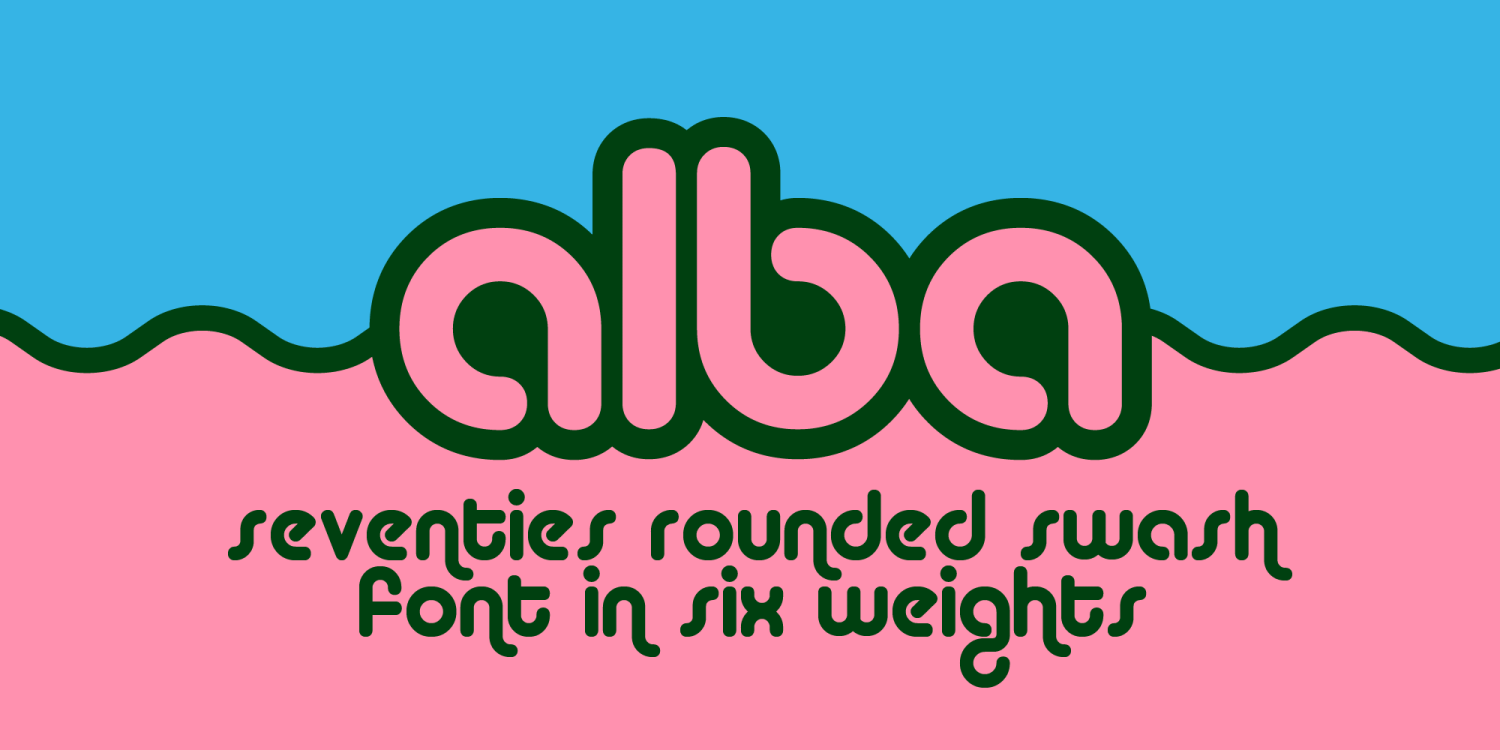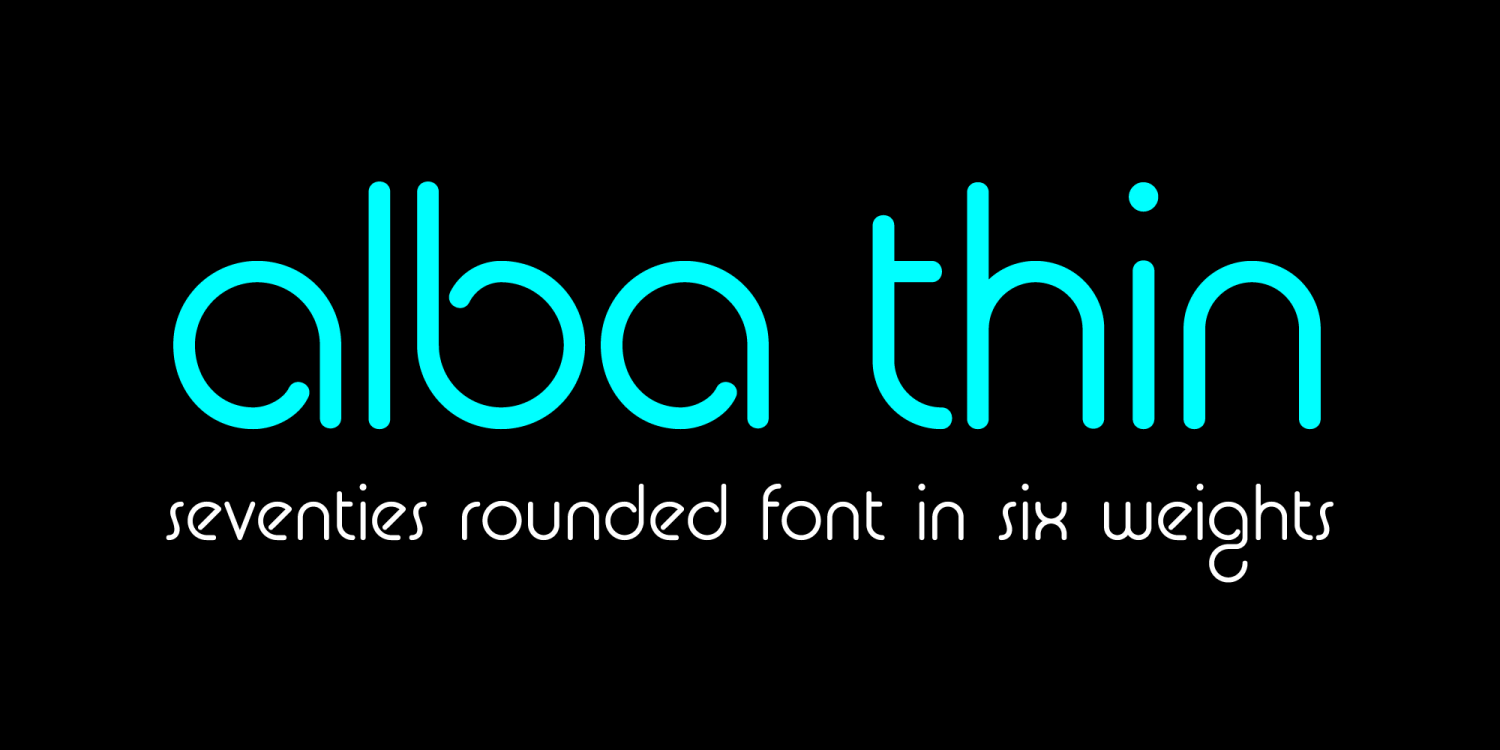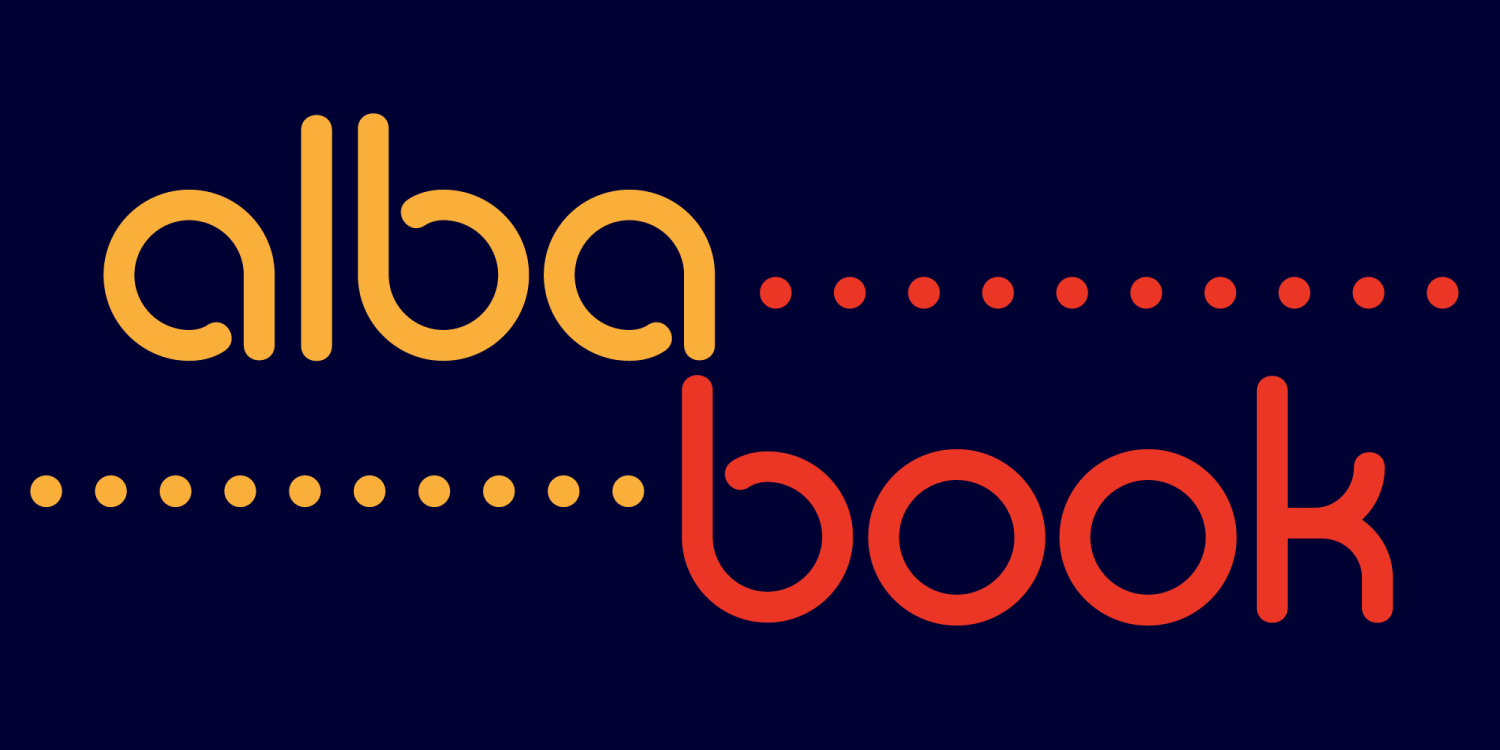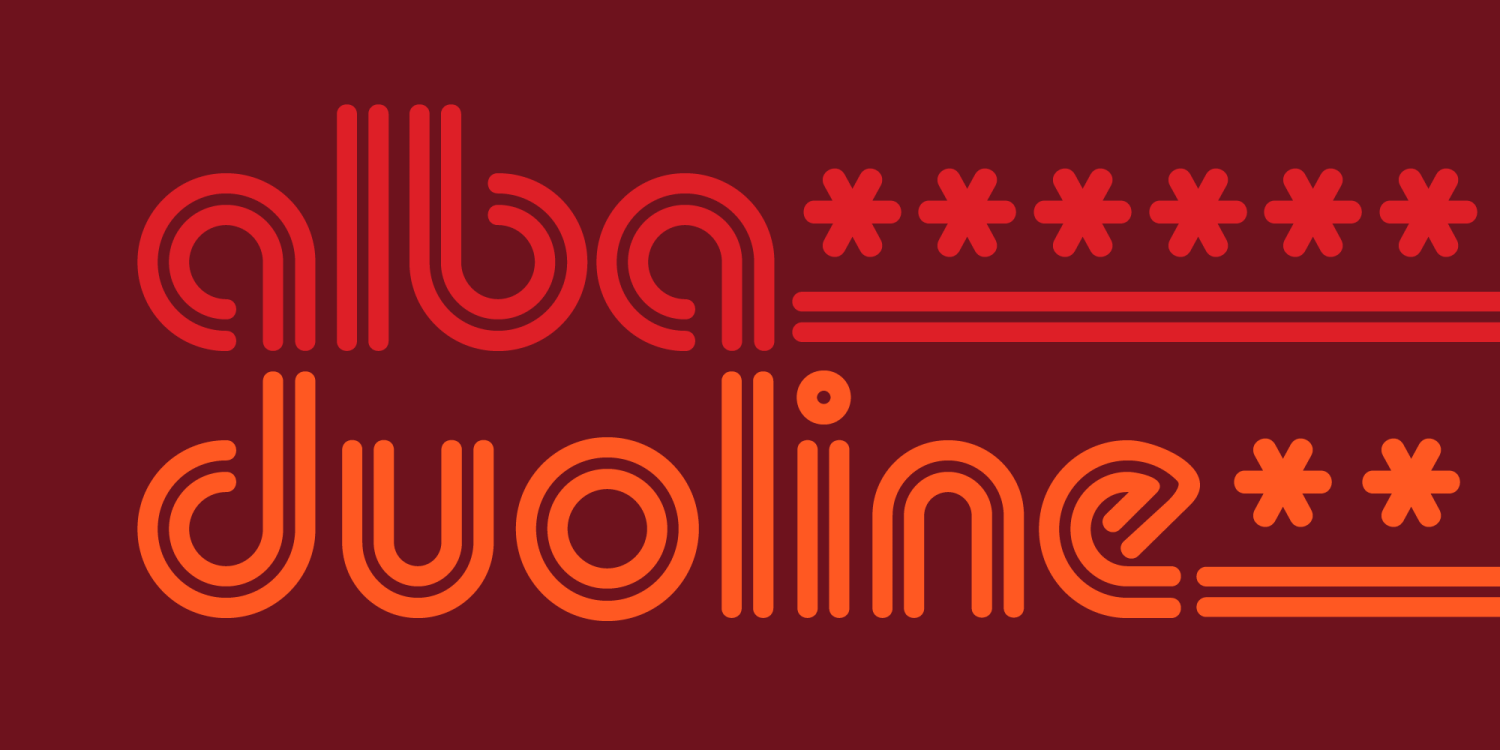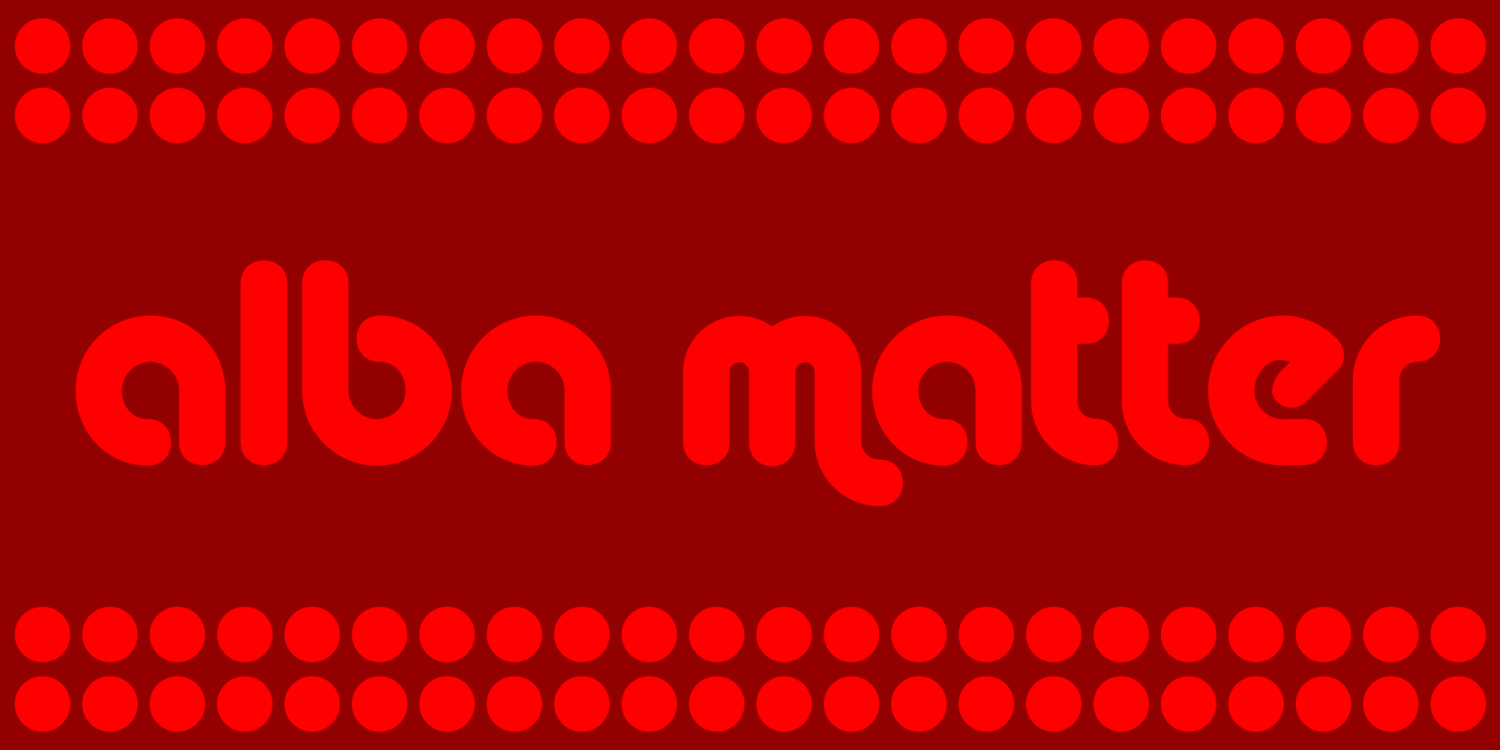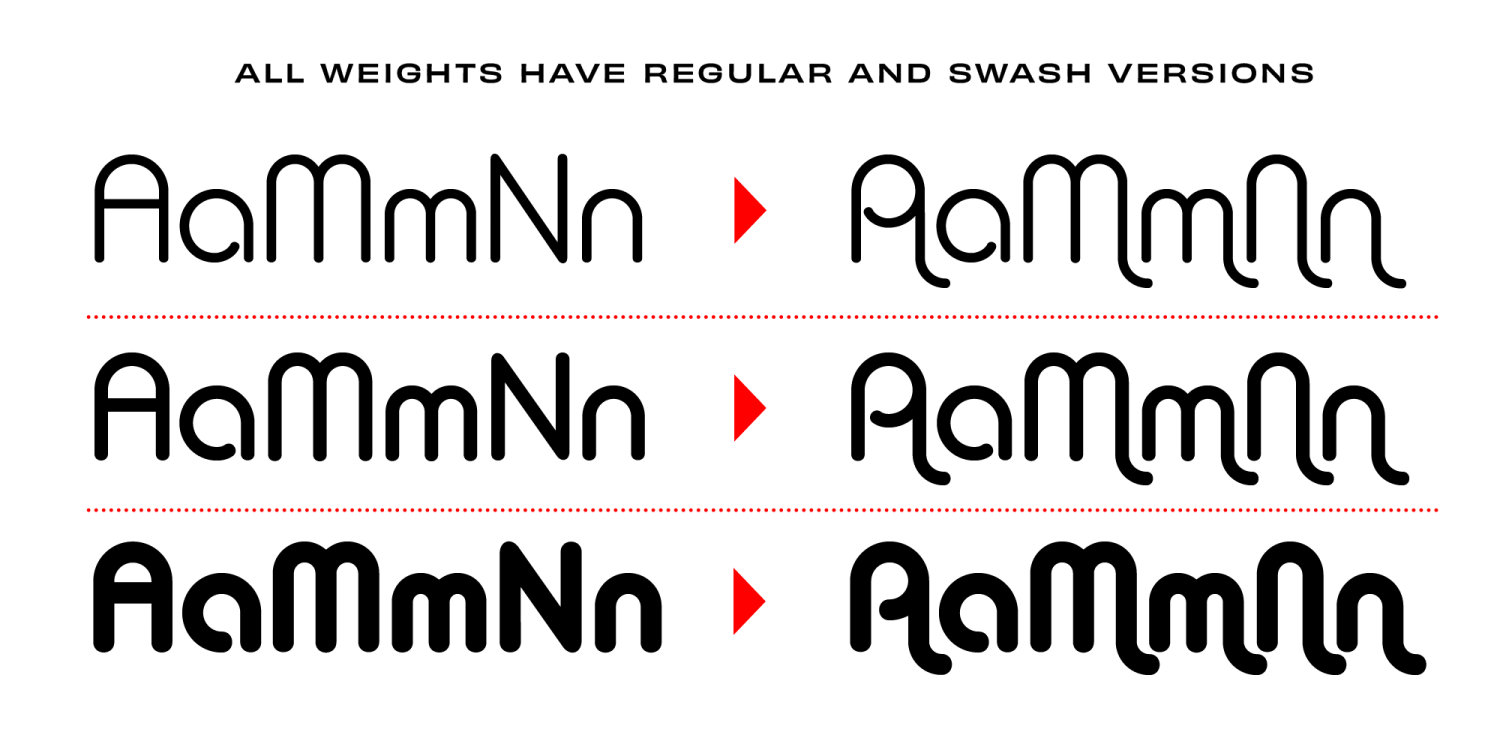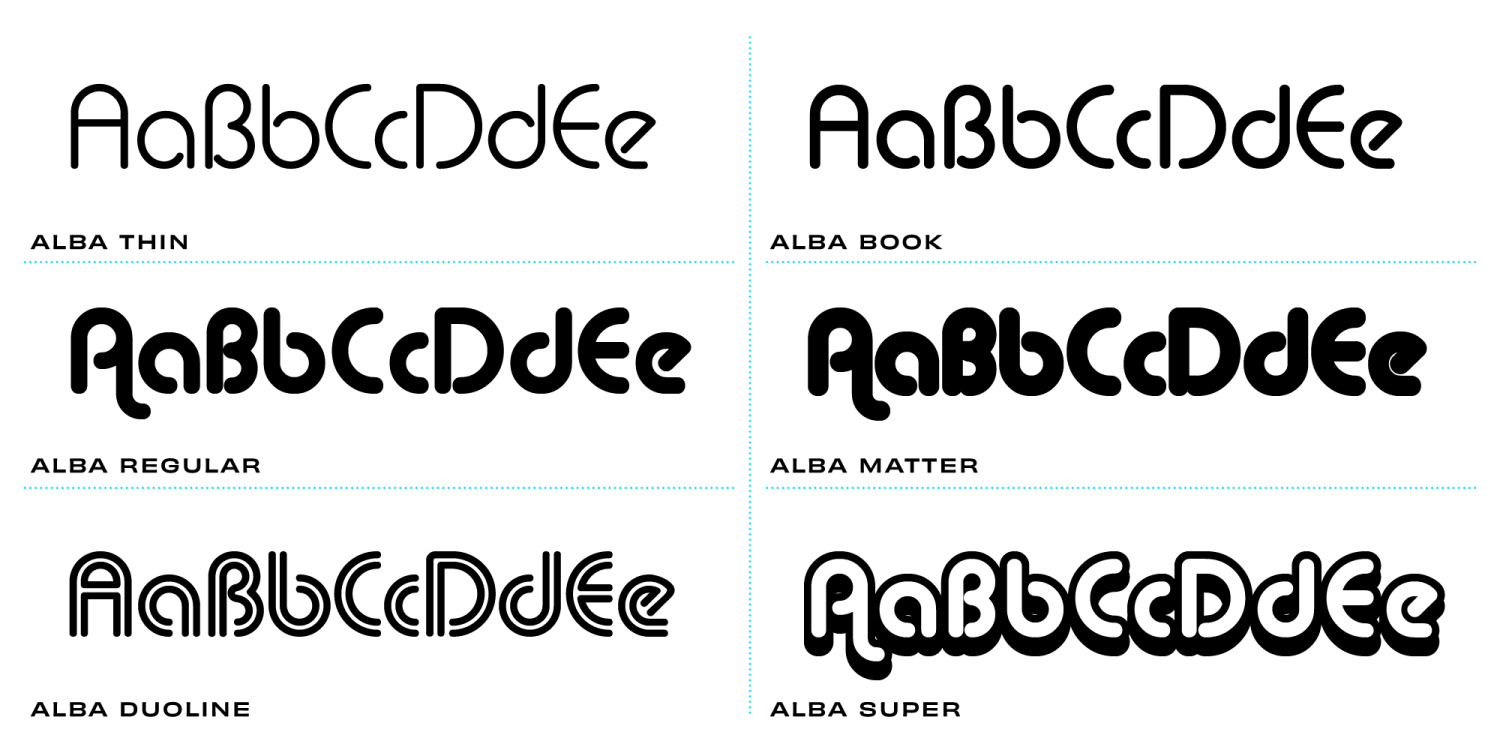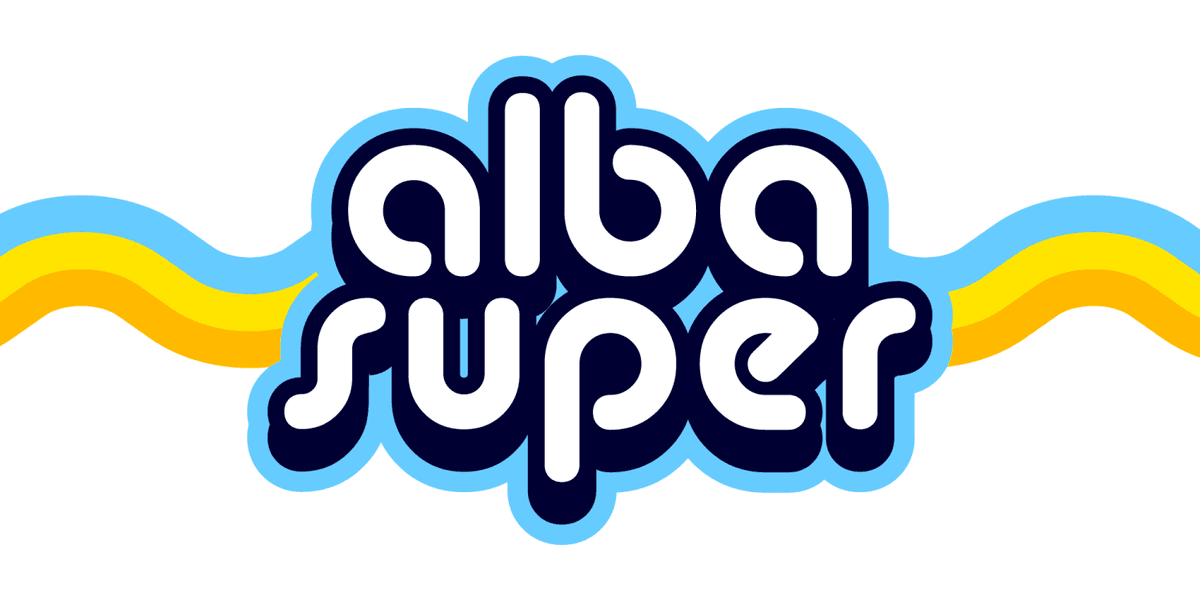
This '70s-inspired gem is the life of the typographic party, bringing smiles and good vibes wherever it goes. It's the font that says, 'Let's make reading fun again!' Grab a seat and enjoy the whimsical rollercoaster of letters that's as delightful as a Saturday morning cartoon.